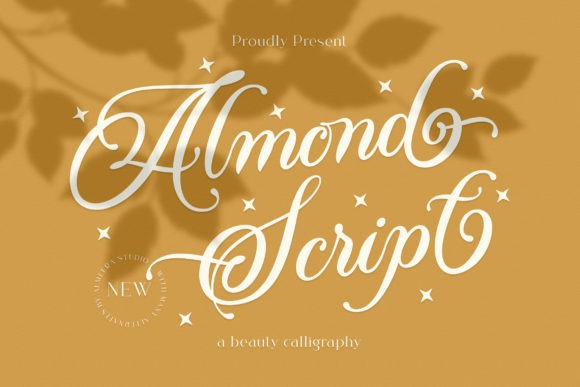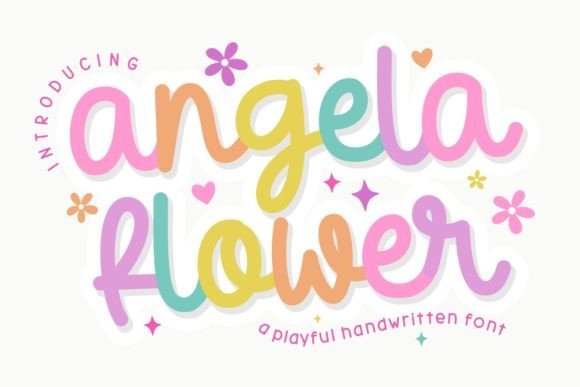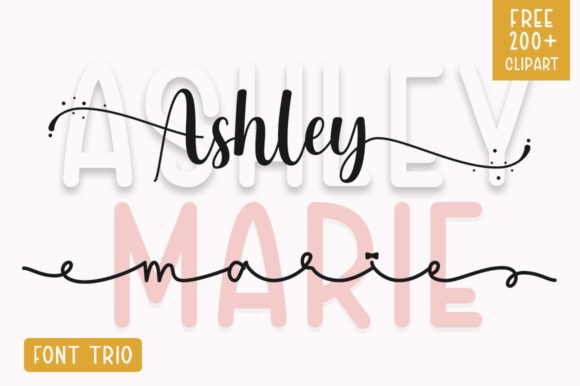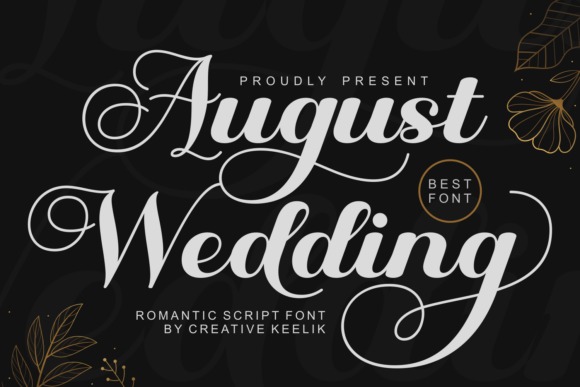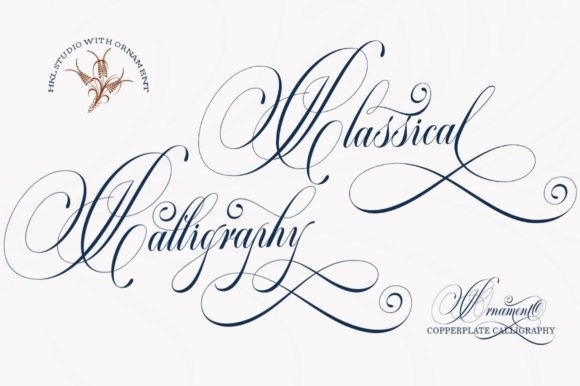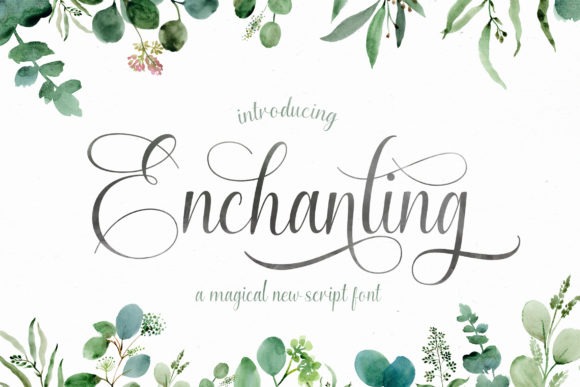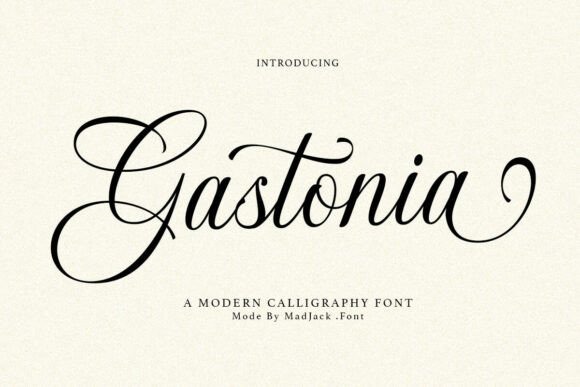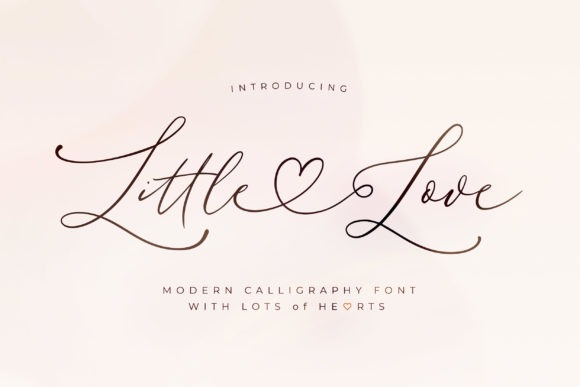
Discover the Best Free Calligraphy Fonts for Wedding Invitations
Free calligraphy fonts can give wedding invitations the graceful, personalized look of hand lettering without requiring custom calligraphy for every card. I favor scripts with flowing strokes, attractive capital letters, and enough clarity for names, dates, and short invitation headings. For the most polished result, I’d use calligraphy selectively and pair it with a restrained serif or sans serif for the smaller details.
| Font | Best for | Type |
|---|---|---|
| Classical Calligraphy | Formal invitations | Traditional calligraphy |
| Wedding Enchanting | Romantic suites | Decorative script |
| Opera Signature | Minimal invitations | Signature script |
| August Wedding | Modern weddings | Calligraphy script |
| Joseph Sophia | Classic-romantic stationery | Script |
| Elegantly | Refined headings | Modern calligraphy |
| Enchanting Script | Flourished names | Decorative script |
| Gastonia Script | Vintage romance | Script |
| Almond Script | Soft garden weddings | Calligraphy script |
| Magnolia | Botanical invitations | Handwritten script |
| Roselya Script Font | Elegant name treatments | Modern script |
| Maddison | Sweet romantic stationery | Calligraphy script |
| Little Love | Intimate weddings | Modern calligraphy |
| Soulmate | Save-the-dates | Romantic script |
| Hey Magnolia | Garden celebrations | Handwritten script |
| Heart Hope | Casual-elegant suites | Modern script |
| Sarphine | Contemporary invitations | Calligraphy script |
| Sunshine Olivia | Relaxed weddings | Handwritten script |
| Handmade Calligraphy | Artisan stationery | Calligraphy |
| Angela Flower | Floral invitations | Decorative script |
| Ashley Marie | Modern feminine suites | Signature script |
How I Picked These
I compared these options by how well they fit the article’s intended use, including readability, visual character, practical versatility, distinctive features, and how clearly each choice differs from the rest of the roundup. I prioritized options that solve a specific design need rather than simply adding more similar-looking products.
Best Free Calligraphy Fonts for Wedding Invitations
1. Classical Calligraphy
Classical Calligraphy is my pick for couples who want invitation typography that immediately reads as formal and traditional. The style fits ballroom weddings, historic venues, black-tie celebrations, and stationery built around centered names and generous white space.
I’d reserve it for the couple’s names, a short heading, or perhaps a monogram rather than setting every line in script. That restraint lets the calligraphic character feel special while a classic serif handles the date, address, RSVP information, and other details.
Best for: black-tie weddings, formal invitations, traditional stationery
Key features: classical mood, flowing script character, strong display presence
2. Wedding Enchanting
Wedding Enchanting is a decorative handwritten script aimed squarely at romantic wedding design. I’d reach for it when the invitation needs noticeably ornamental names rather than the quieter look of a minimal signature font.
Its personality makes it especially suitable for floral suites, candlelit receptions, and soft vintage-inspired layouts. The tradeoff with a more decorative script is that visual complexity rises quickly, so I’d surround it with plenty of breathing room and keep supporting typography simple.
Best for: romantic weddings, floral invitations, decorative name treatments
Key features: handwritten script, ornamental mood, wedding-focused styling
3. Opera Signature
Opera Signature is a signature-style font I’d choose for modern wedding invitations that need elegance without heavy traditional ornament. Its handwritten character is a natural fit for oversized couple names paired with crisp, understated supporting type.
This is one of the directions I prefer for minimalist stationery because a signature script can add personality while leaving the rest of the page clean. It also suits menus, place cards, thank-you notes, and other pieces where a short personalized phrase needs to feel handwritten.
Best for: minimalist weddings, modern stationery, couple names
Key features: signature styling, handwritten appearance, contemporary feel
4. August Wedding
August Wedding is a modern calligraphy option with an obvious connection to romantic event design. I’d use it for an invitation that should feel polished but less ceremonious than old-fashioned copperplate-inspired lettering.